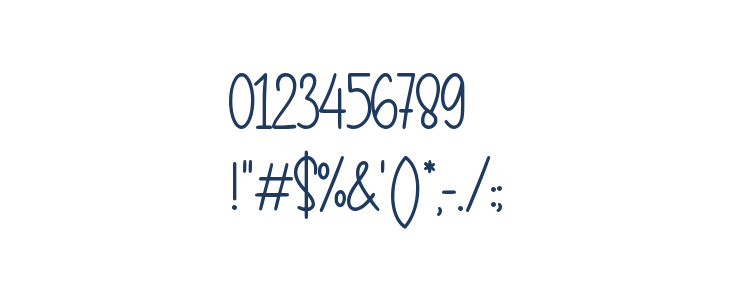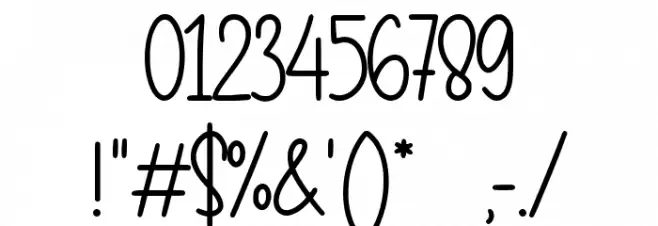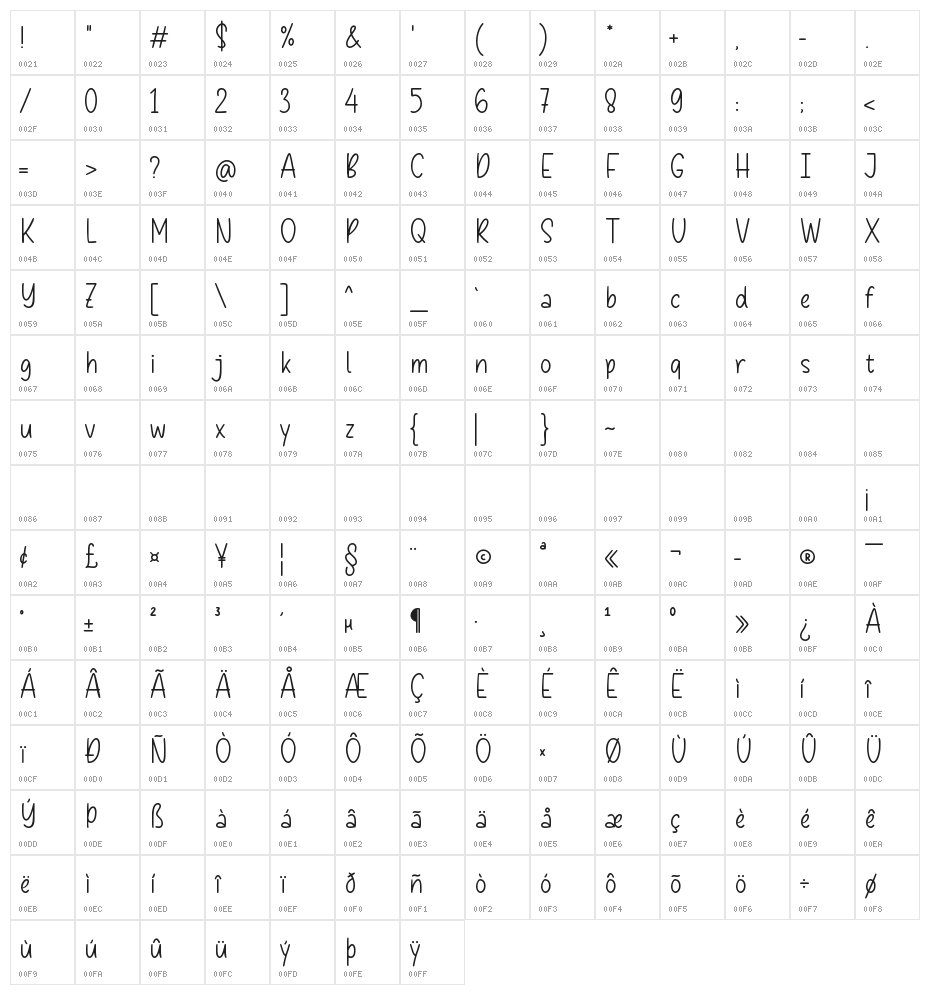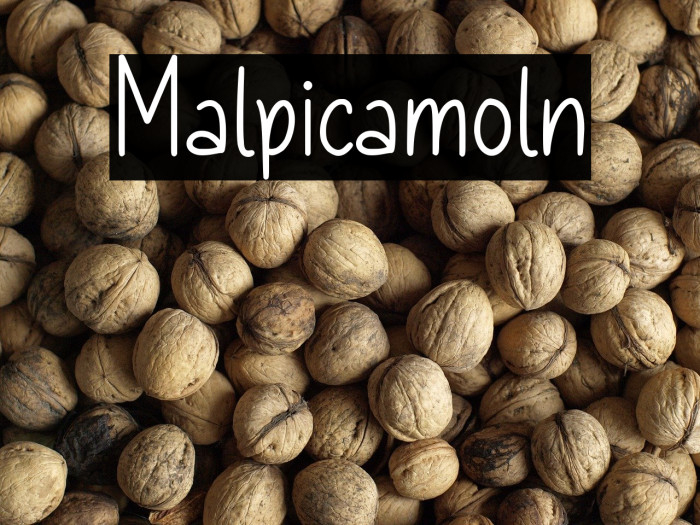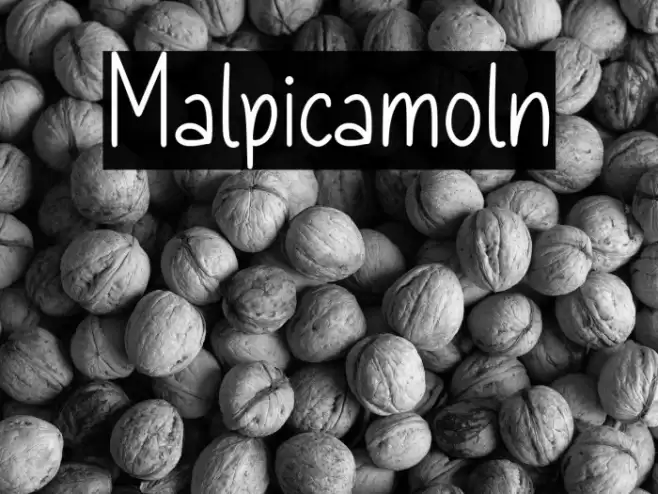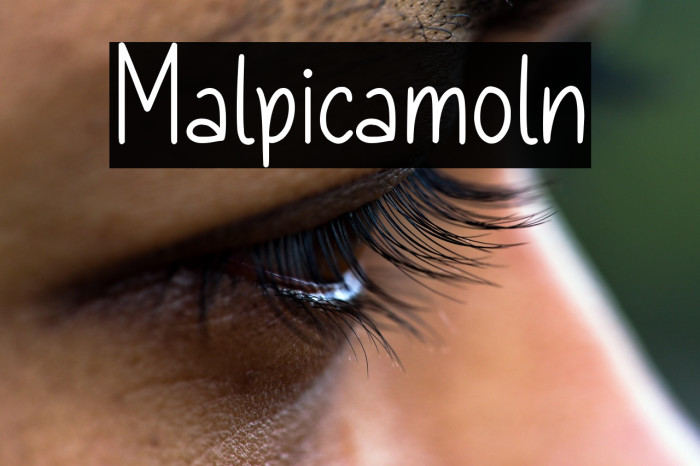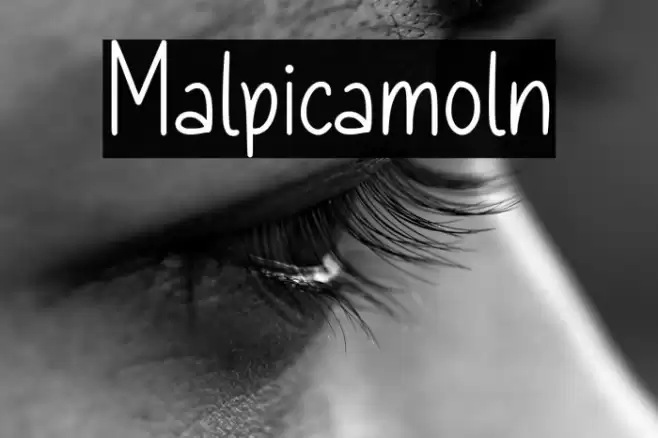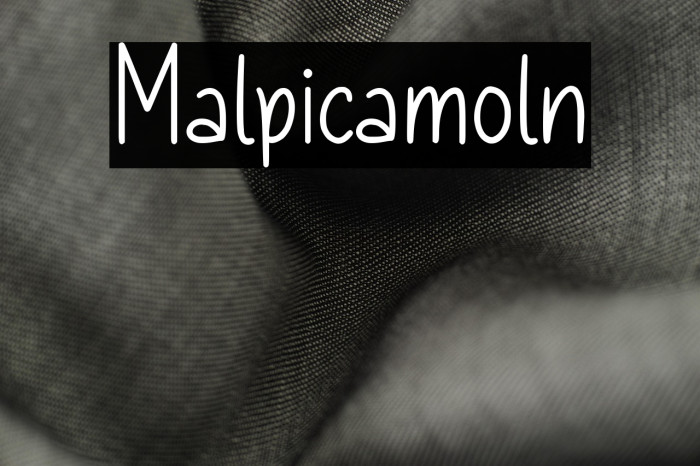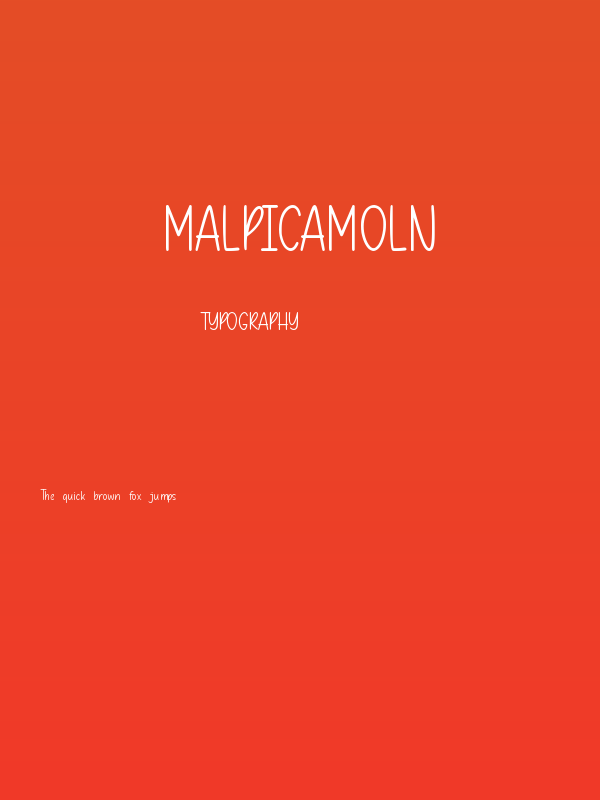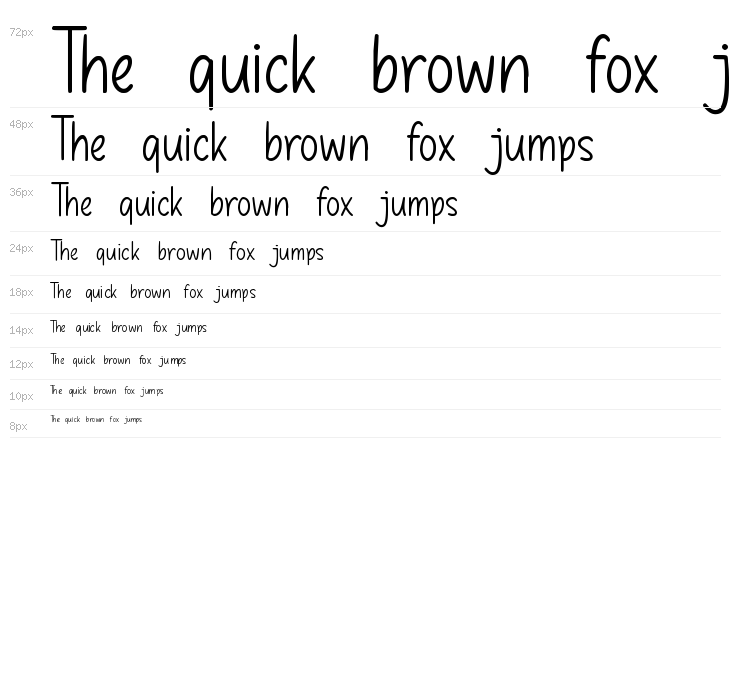
Malpicamoln Font
Malpicamoln Description
This playful and casual font features a handwritten style with smooth, rounded edges and a friendly appearance. The letters are slightly irregular, adding a personal touch that mimics natural handwriting. The uppercase and lowercase letters maintain a consistent flow, while the numerals and special characters complement the overall aesthetic. The font's informal nature makes it suitable for projects that require a warm and approachable feel.
| Use Case | Headlines, Informal text, Branding |
| Proposed Projects | Ideal for greeting cards, children's books, casual branding, and social media graphics. |